Everything You Need To Know About Variable Fonts In Divi 5
Variable fonts have been around for years, but most page builders still treat them like static fonts. You get a font picker, a weight dropdown, and maybe an italic toggle. The deeper controls these fonts are built for never make it into the visual workflow.
Those deeper controls are what make variable fonts worth using. A variable font can give you continuous control over weight, width, slant, optical size, grade, roundness, shape, and other axes depending on the typeface. Instead of choosing from a few fixed styles, you can fine-tune the font to fit the exact size, layout, and mood of the design.
Divi 5’s Variable Fonts update brings those controls into the Visual Builder. When you choose a supported Google variable font, Divi reads the font’s available axes and displays the matching controls in the relevant text option group. No custom CSS. No guessing which axes the font supports. No limiting a variable font to a basic weight dropdown.
In this guide, we’ll look at what variable fonts are, how they work in Divi 5, which controls you may see, how to use Font Variables, and how the new text styling options released alongside variable fonts give you more control over typography across your site.
What Are Variable Fonts?
Traditional fonts work like a menu. You get a fixed set of styles, such as Regular, Medium, Bold, and Italic, and each style usually exists as its own font file. If the exact style you want is not available, you either choose the closest one or fake the effect with browser rendering.
Variable fonts work differently. One font file can hold a full range of styles controlled through axes. An axis is a continuous range for a specific part of the type design. Common axes include Weight, Width, Slant, Italic, Optical Size, and Grade, but some fonts include more experimental controls for roundness, shape, casualness, monospace behavior, stroke contrast, and more.
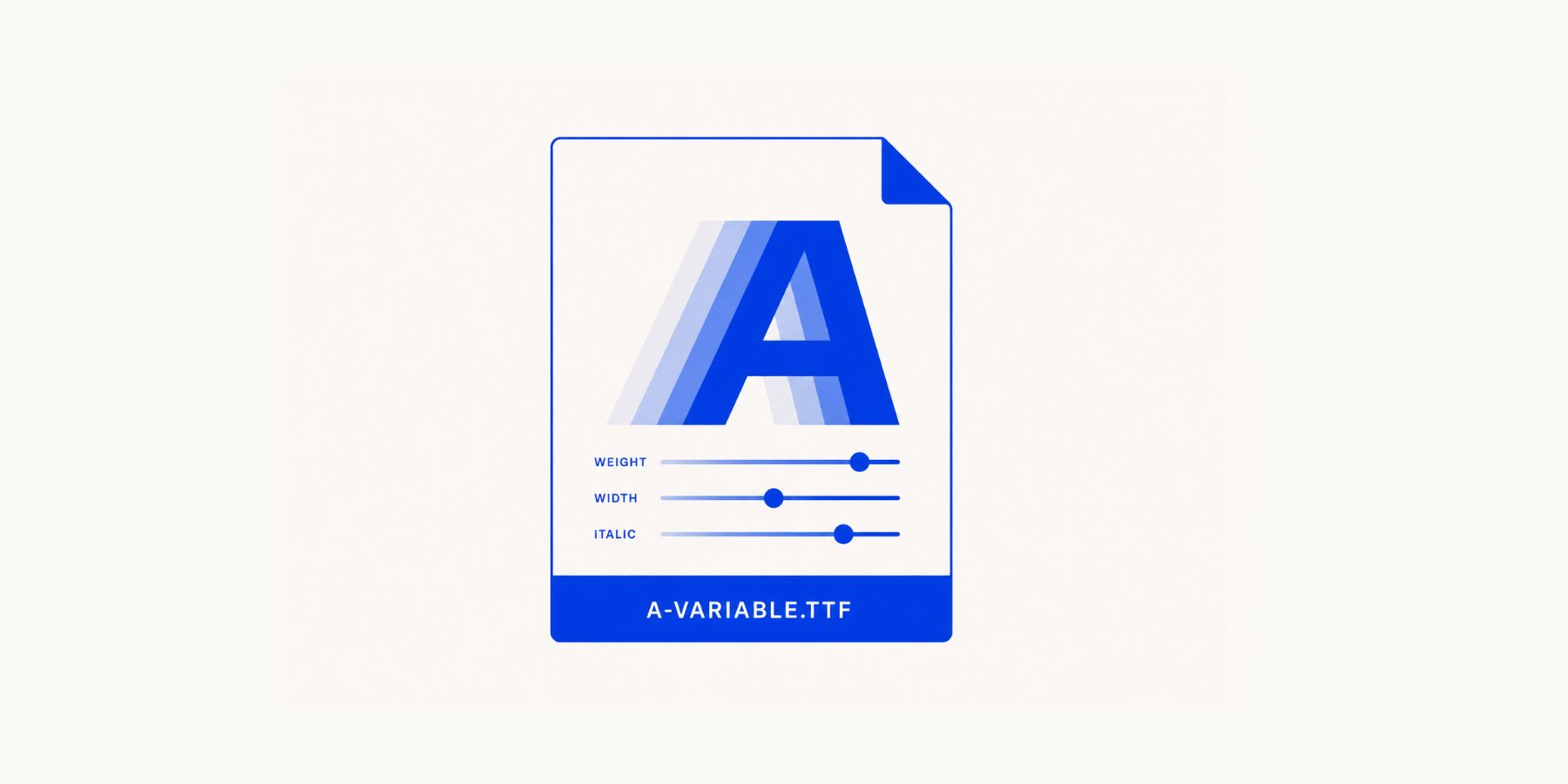
Weight makes the difference easy to understand. A static font might give you 400 and 700. A variable font might let you choose any value between 100 and 900. That means you can use 520, 575, 620, or whatever value actually works for the heading size, color, background, and surrounding layout.
Why Variable Fonts Matter
Variable fonts matter because typography is rarely solved by one fixed choice.
A heading at 700 might feel too heavy. At 500, it might feel too light. A variable font lets you land between those fixed stops and choose the exact value that feels right. That level of control is especially useful in hero sections, large headings, buttons, navigation, cards, and any layout where small typographic differences change the balance of the design.
Optical size is another useful example. Some variable fonts include an opsz axis, which adjusts the letterforms for different text sizes. Smaller text can become sturdier and easier to read, while larger display text can gain more contrast and personality. Instead of forcing one drawing of a typeface to work at every size, the font can adapt to the role it is playing.
There can also be a performance benefit. If one variable font replaces several separate static font files, you may reduce the number of font files needed for the design. That does not mean every variable font is automatically lighter than every static font setup, but it does mean a well-planned variable font system can give you more typographic range without loading a long list of separate styles.
Where To Find Variable Fonts
Google Fonts is the easiest place to start. Use the variable fonts filter to narrow the library to typefaces that include one or more variable axes. Here are our top 10 variable fonts you can use in Divi right now.
Static fonts show a fixed list of available styles. If the font only ships with Regular, Medium, and Bold, those are the choices you get.
Variable fonts are marked clearly, and their detail pages show the axes they support. A font with only a Weight axis can still be useful, but a font with Weight, Width, Slant, Optical Size, Grade, or other custom axes gives you more room to shape the typography.
Before choosing a font, open its Google Fonts detail page and check what it actually supports. Two variable fonts can behave very differently. One might only adjust weight. Another might offer width, slant, grade, optical size, and custom design axes that make it much more flexible.
Introducing Variable Font Controls In Divi 5
Getting a variable font into Divi was never the hard part. The harder part was accessing the axes that make the font variable in the first place. Without dedicated controls, anything beyond basic weight often required custom CSS with font-variation-settings.
Divi 5 changes that by adding variable font controls directly to the Visual Builder. When you select a supported Google variable font, Divi reads the font file and displays the controls that apply to that font.
The new text styling options released alongside variable fonts fill out the rest of the system. Text Columns, Drop Caps, Text Direction, Stroke Position, Capitalization, Paragraph/List Spacing, Hyphenation, and Line Wrap Style give you more control over how text sits and reads on the page.
Start with a variable font that fits the project, check its supported axes, save it as a Font Variable, build a flexible type scale, and use only the axis values your design actually needs. That is how variable fonts become a stronger typography system instead of just another set of sliders.